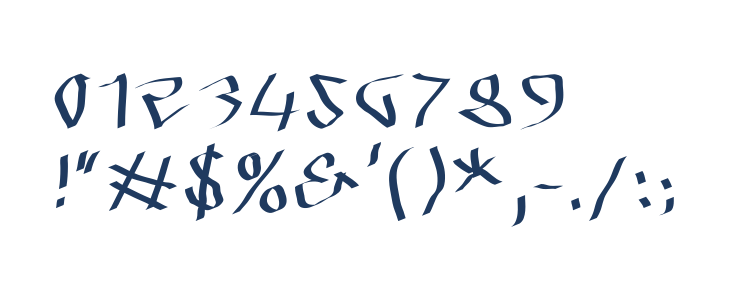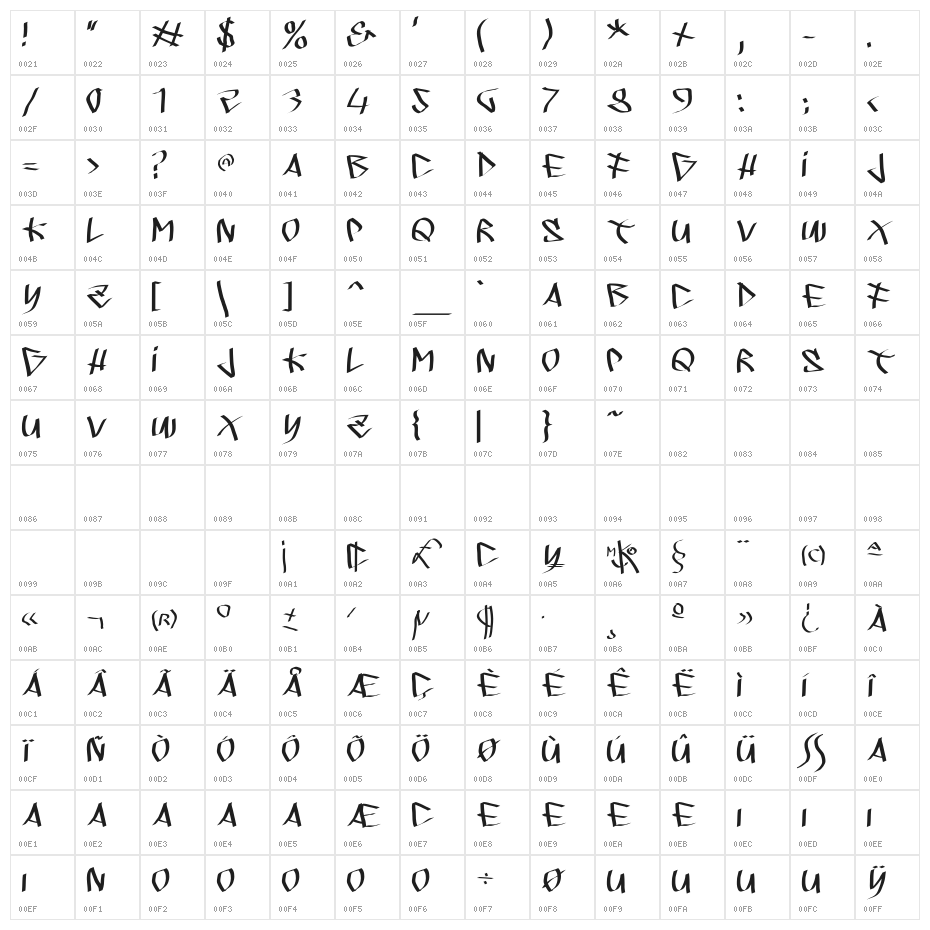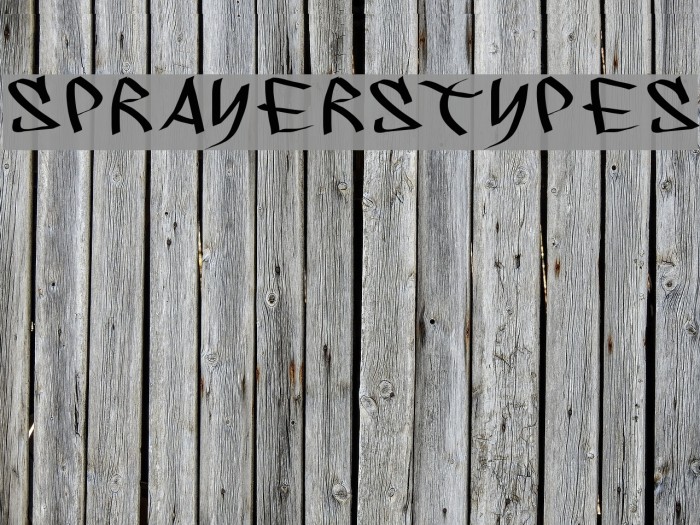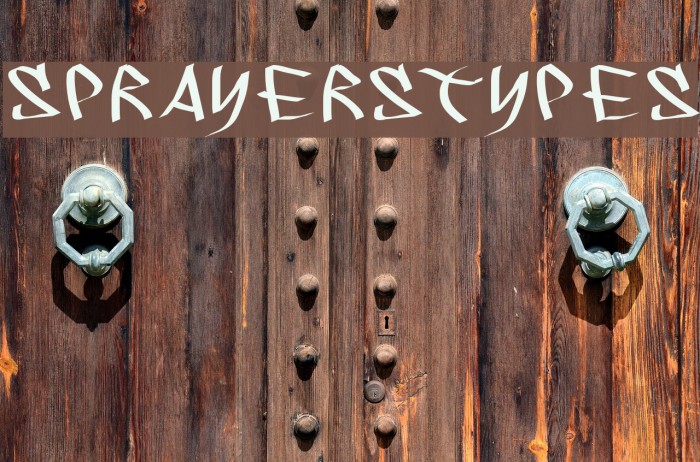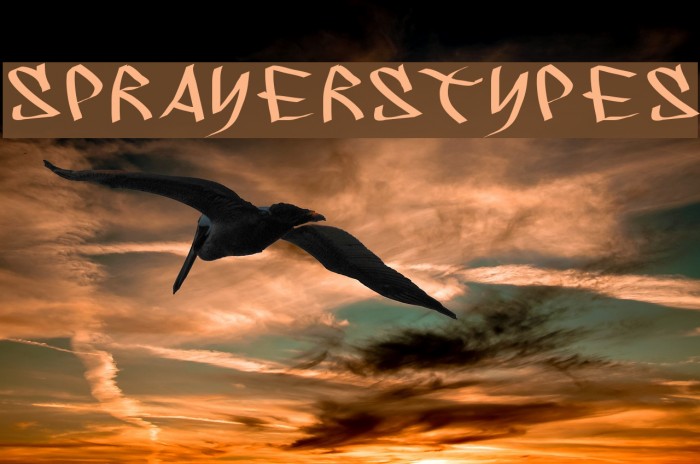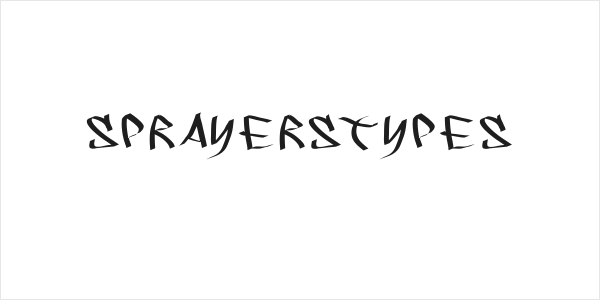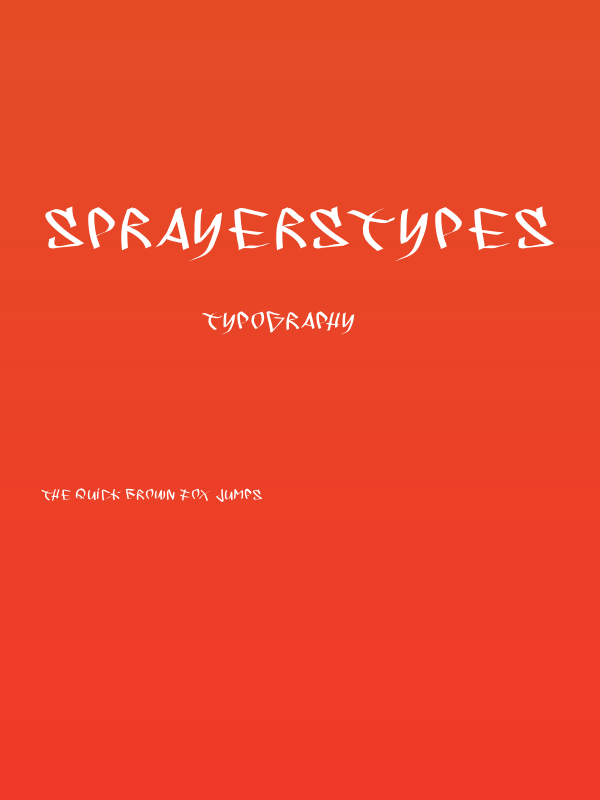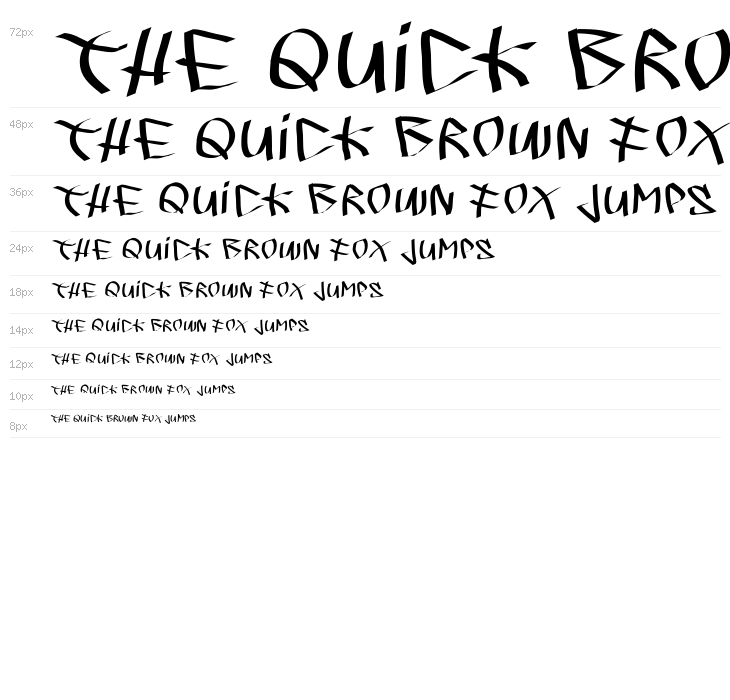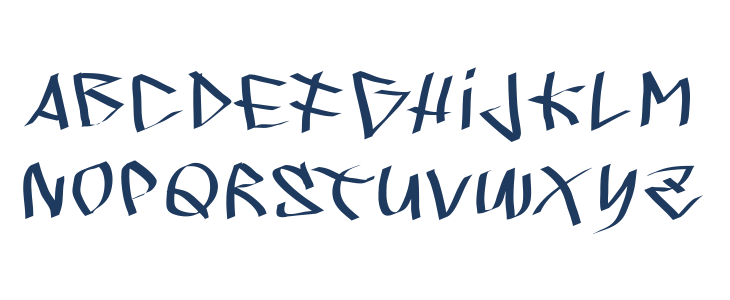
SprayersTypes Font
SprayersTypes Description
This font features a bold, graffiti-inspired style with sharp, angular lines and dynamic strokes. The characters exhibit a sense of movement and energy, reminiscent of street art and urban culture. Each letter is uniquely crafted with a mix of straight and curved lines, giving it a distinctive and edgy appearance. The font maintains a consistent thickness throughout, providing a cohesive look while allowing for individual character expression. The numerals and special characters follow the same stylistic approach, ensuring uniformity across all glyphs.
Overall StyleUrban, Edgy, Modern
Proposed ProjectsIdeal for urban-themed designs, streetwear branding, music album covers, and event posters.